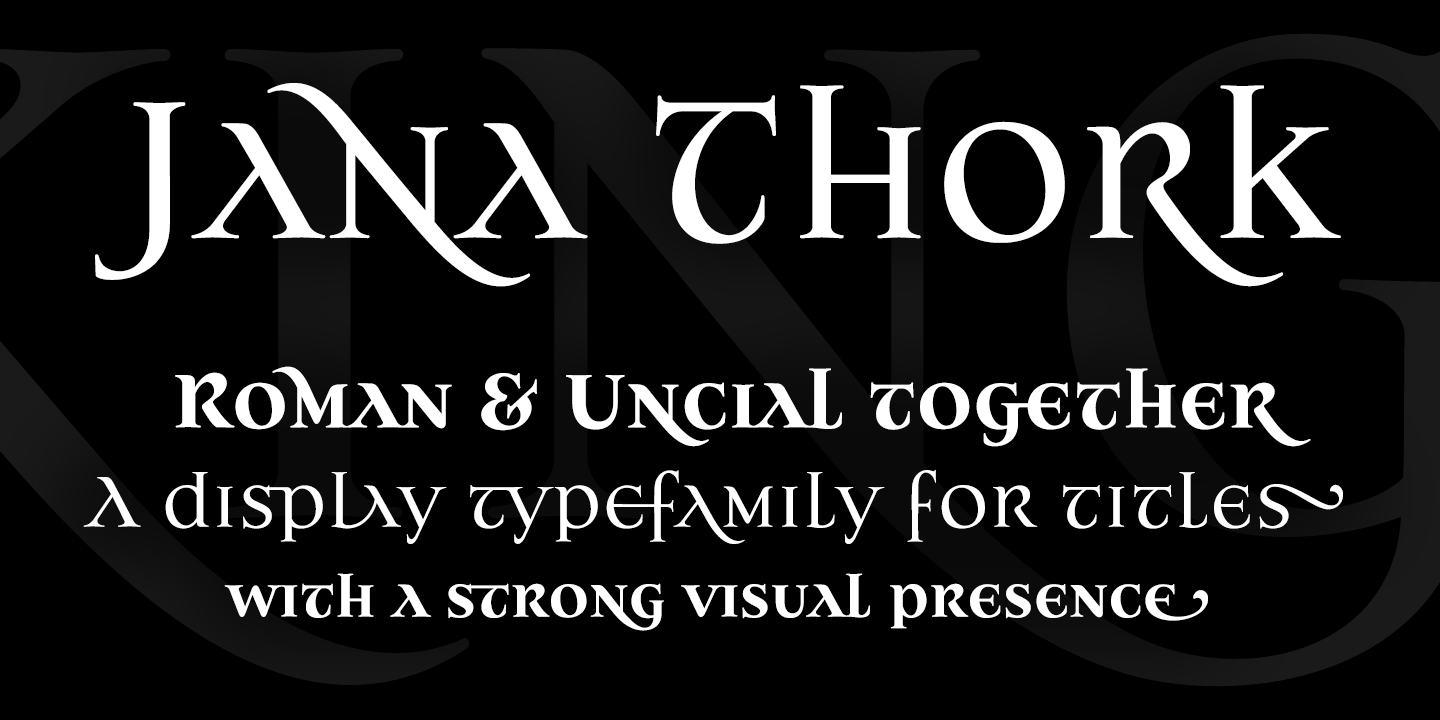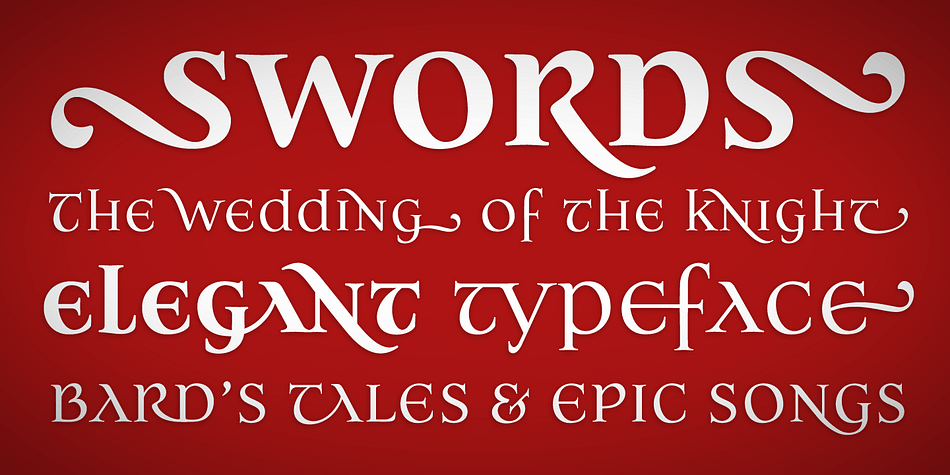
Jana Thork
Designed by Ricardo Esteves Gomes, Jana Thork is a display font family. This typeface has two styles and was published by Outras Fontes.
Jana Thork is a synthesis of the stone engraved roman capital letterforms and the uncial and half-uncial calligraphic styles. The idea in its conception was to seek for the limits between our uppercase and lowercase mental concepts. The fonts comes with more than 120 extras, compiled in some OpenType features like ligatures, swashes and sylistic alternates. This family can be useful to compose titles, short texts, labels and letterings that need to look attractive to the eye. The family also includes Jana Thork Pro Bold that can be used in graphic designs that need more complex hierarchic relations or greater visual impact.